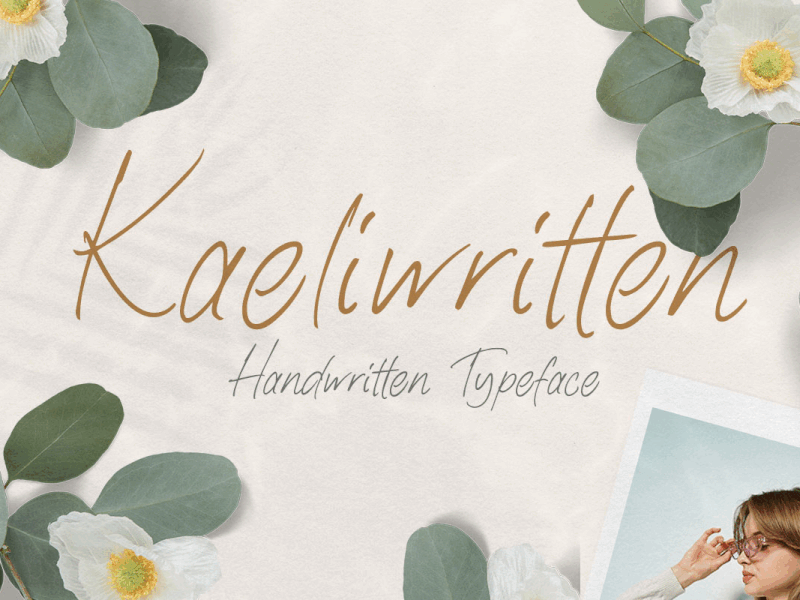
Kaeliwritten - Handwritten Typeface
Introducing, Kaeliwritten. A natural handwritten typeface. This type of font perfectly made to be applied in various formal forms such as invitations, labels, logos, magazines, books, greeting / wedding cards, packaging, fashion, make up, stationery, novels, labels or any type of advertising purpose.
Features :
uppercase & lowercase
numbers and punctuation
multilingual
alternates